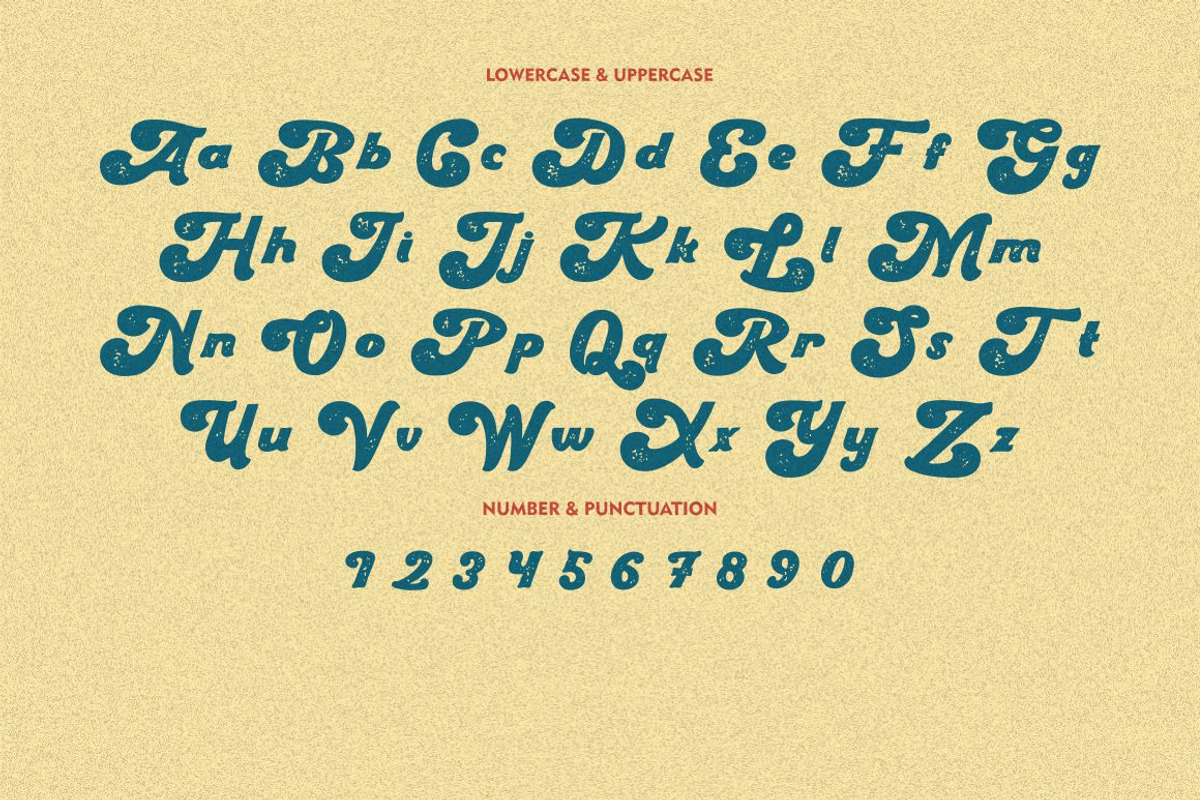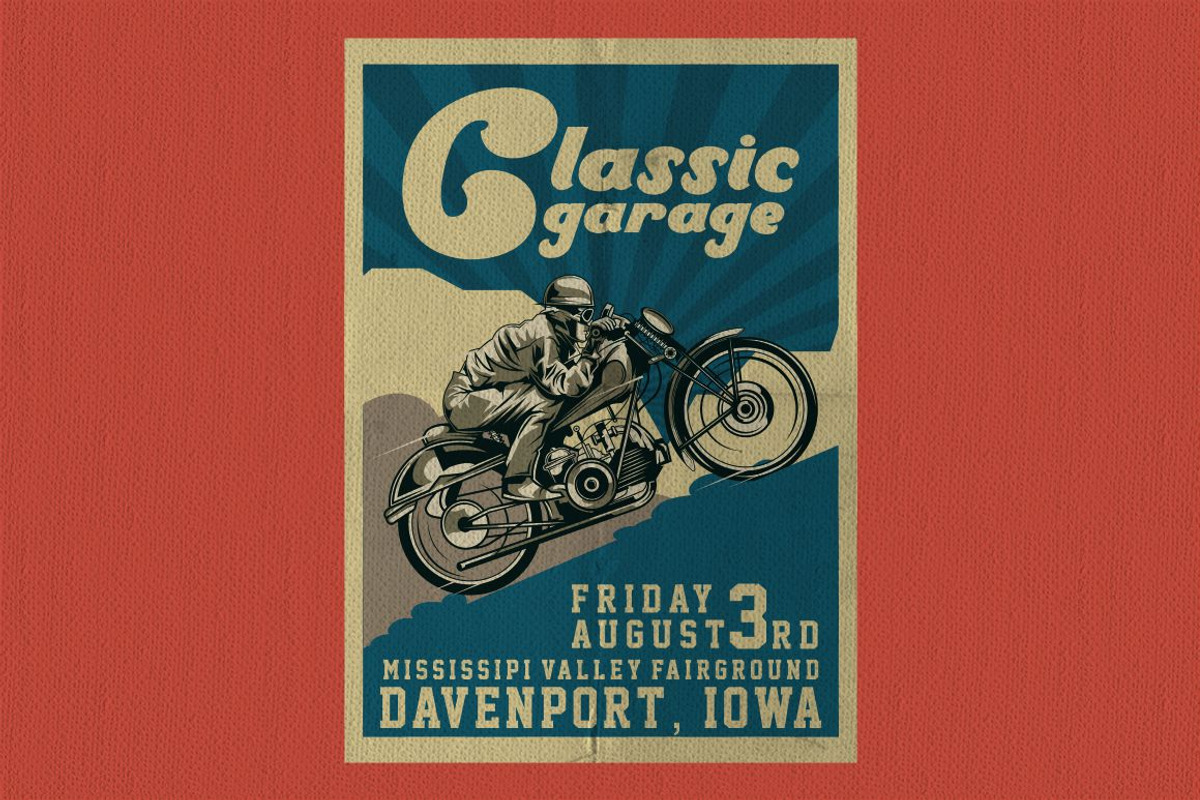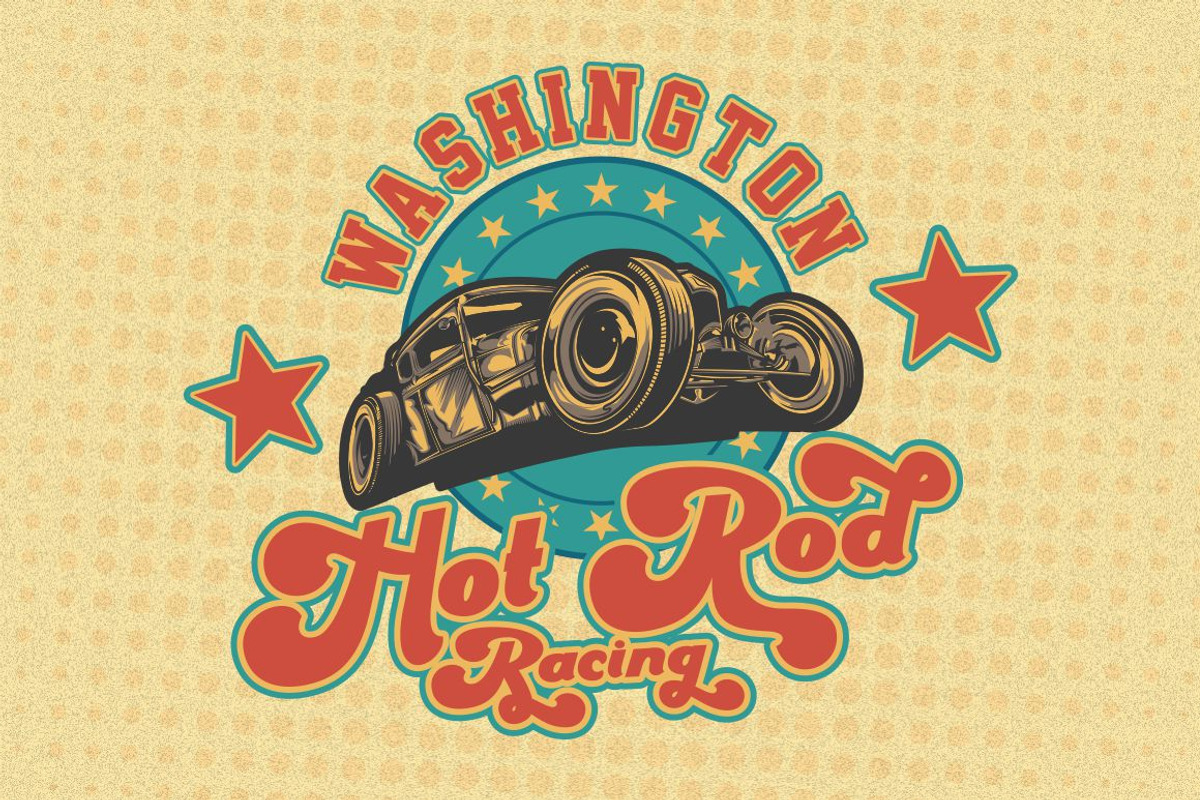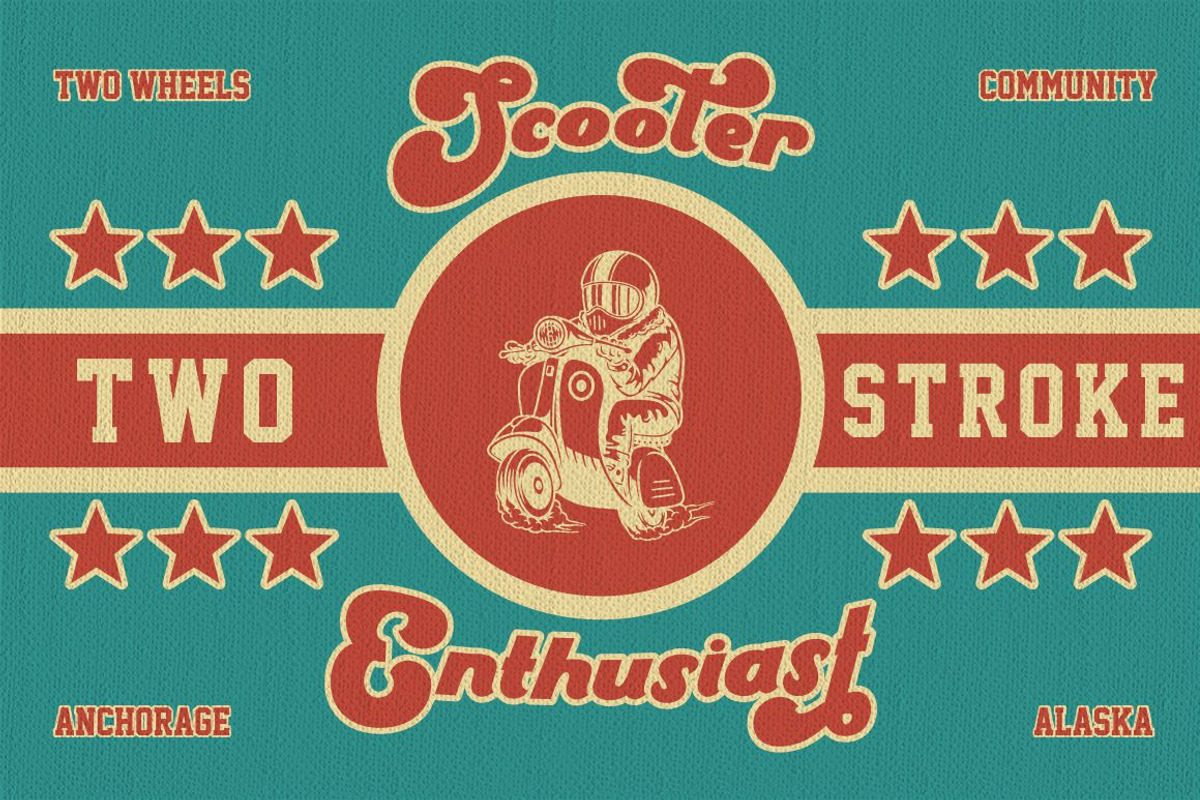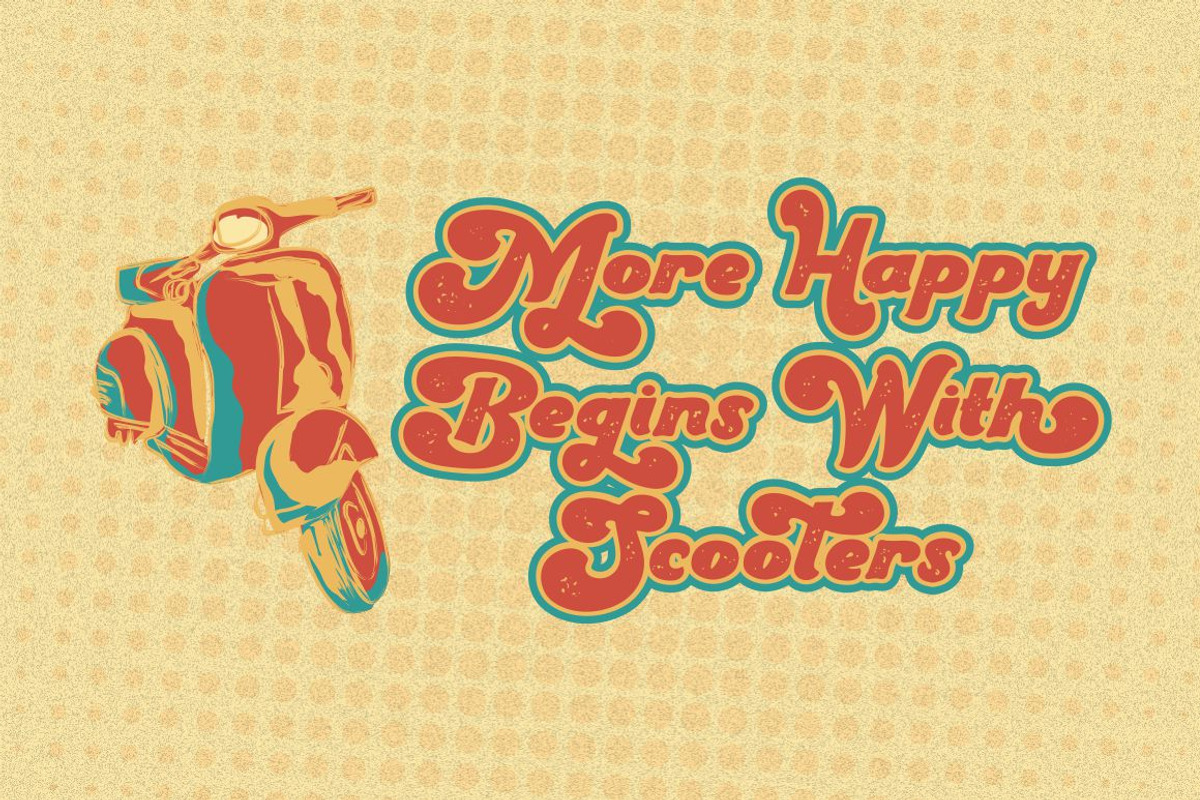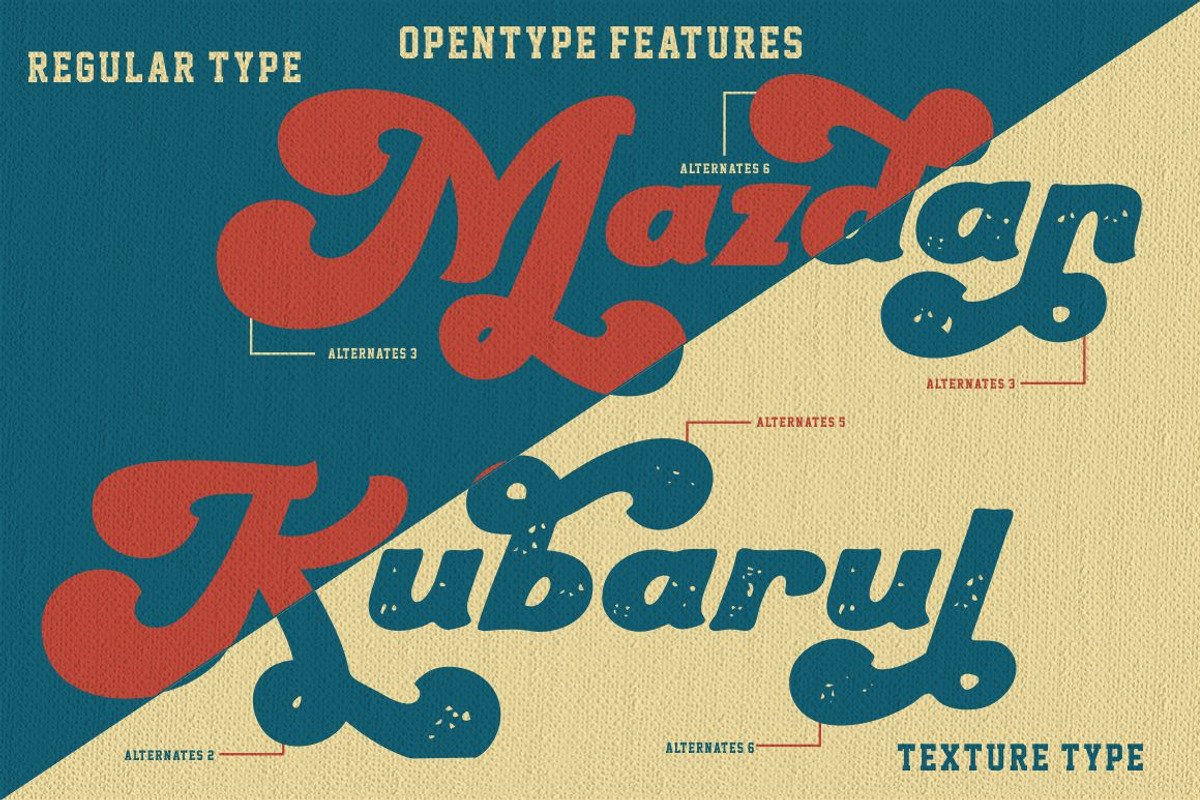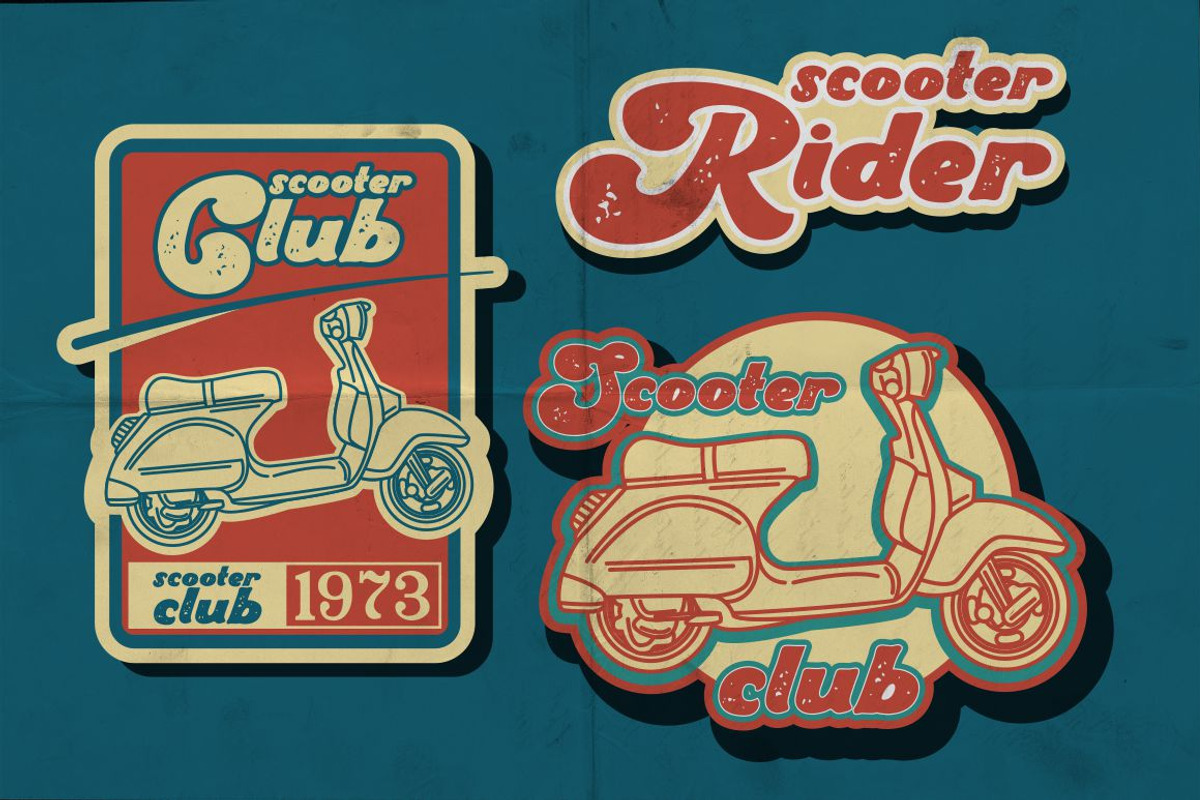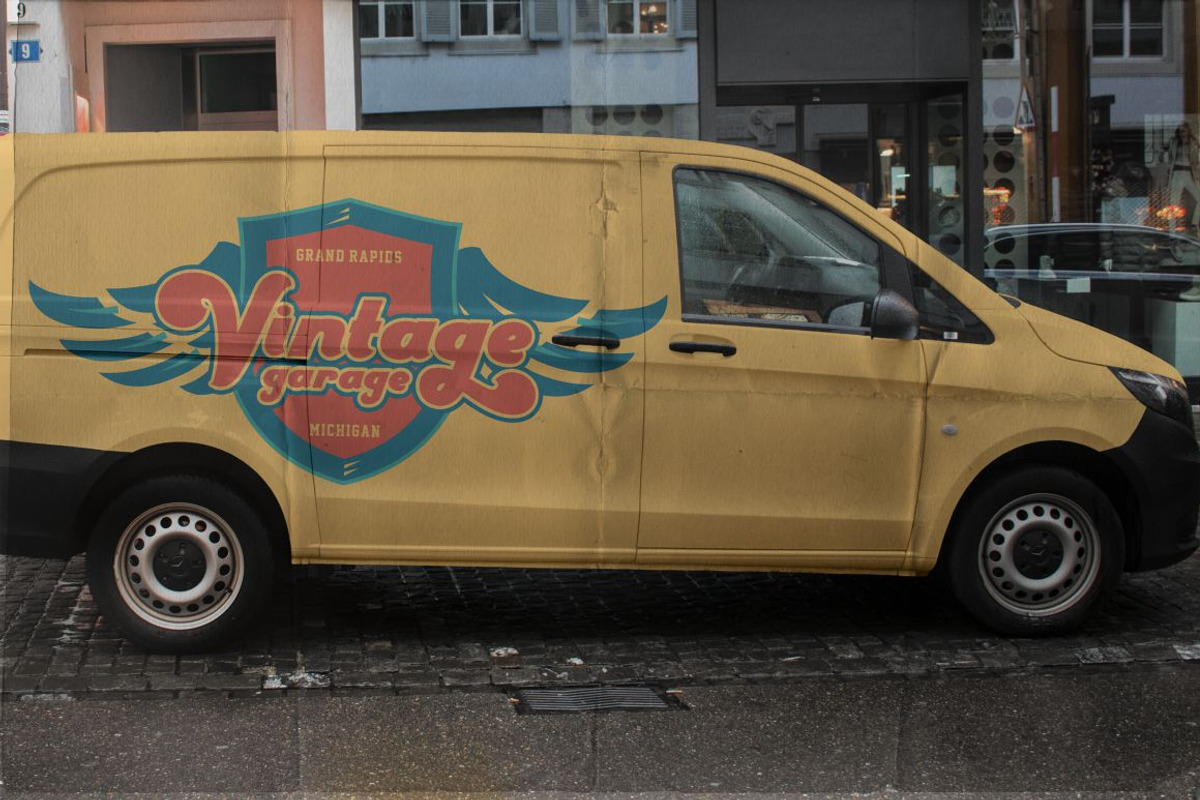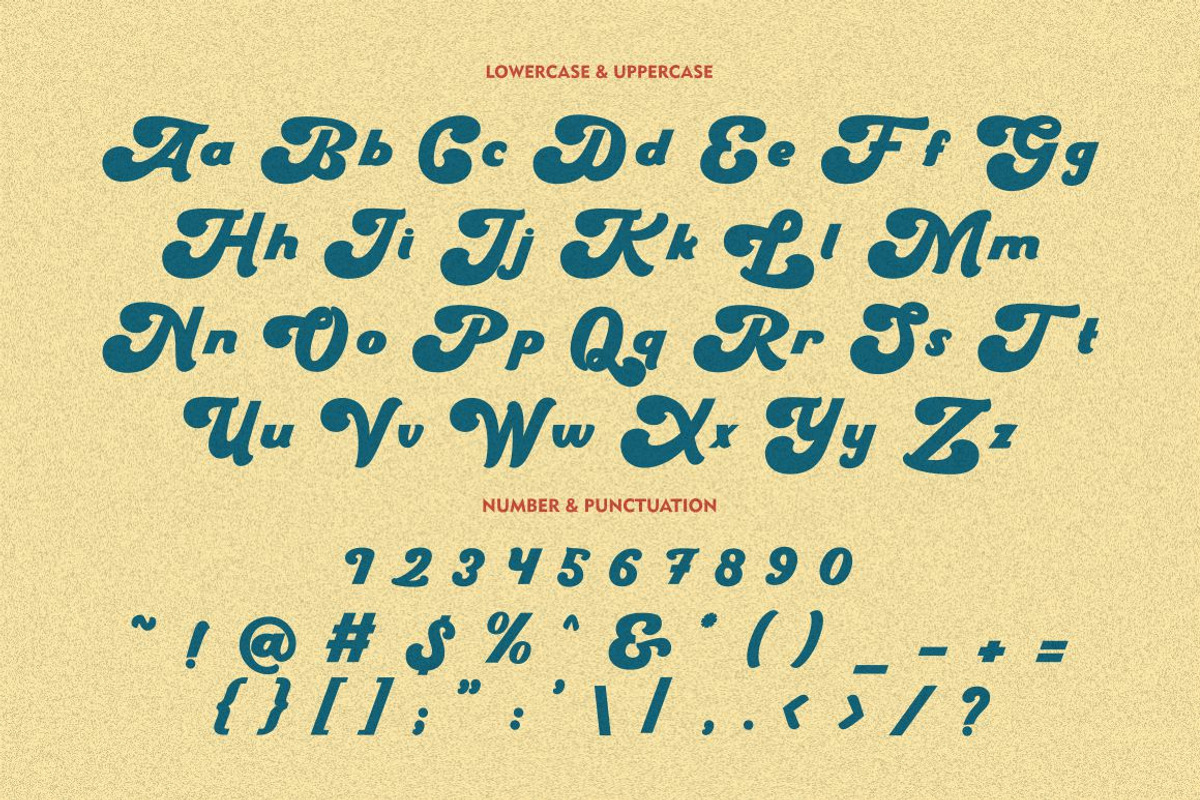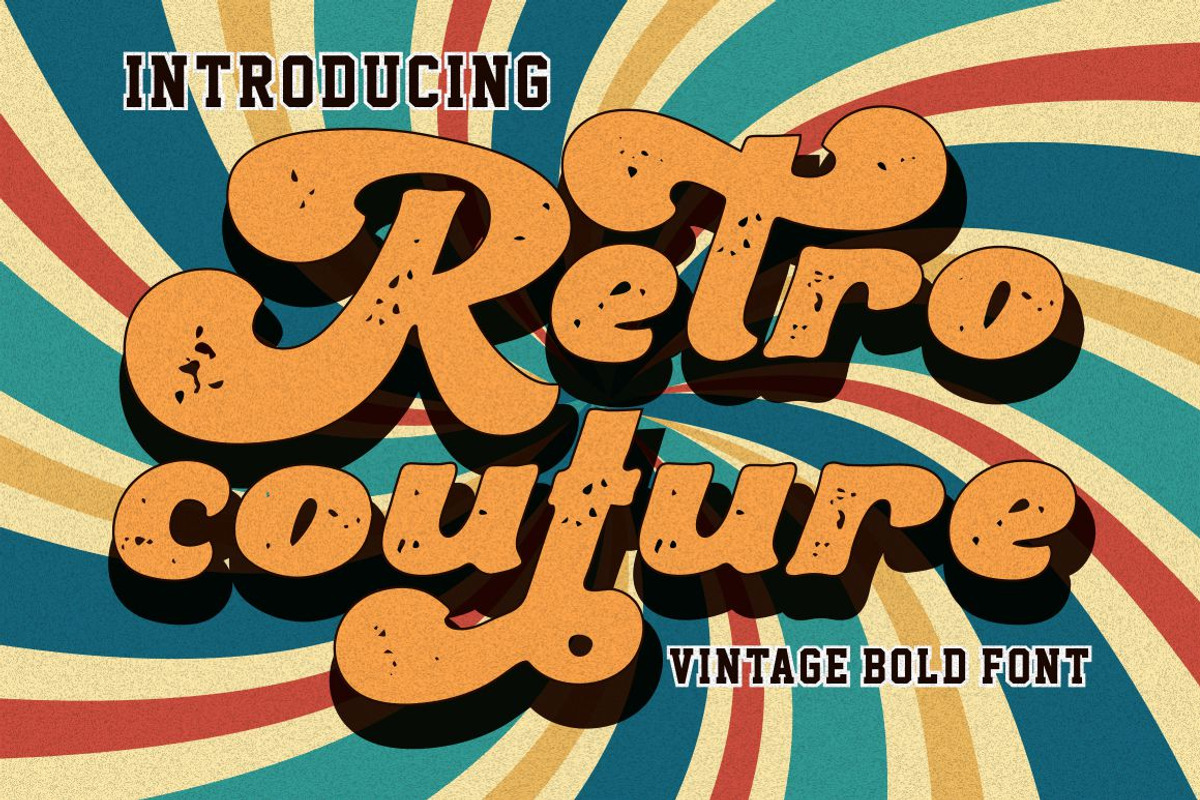
Retro Couture - Vintage Bold Font
Retro Couture - Vintage Bold Font. Retro Couture inspired by vintage poster design, Retro Couture is a family script font designed with carefully handcrafted, Retro Couture is a bold font perfect for your home decor and craft designs
Retro Couture is a vintage font that is perfect for story books, illustrations, comic books, t-shirts, posters, greeting cards, logos, branding, stickers, svg, crafting and all for display purposes.
The alternative characters were divided into several Open Type features such as Swash, Stylistic Sets, Stylistic Alternates, Contextual Alternates, and Ligature. The Open Type features can be accessed by using Open Type savvy programs such as Adobe Illustrator, Adobe InDesign, Adobe Photoshop Corel Draw X version, And Microsoft Word. Retro Couture is also support multi language.
Comes with feature :
- Opentype (Alternates And Ligatures)
- Number, Punctuation And Symbols
- Multilanguage Support.